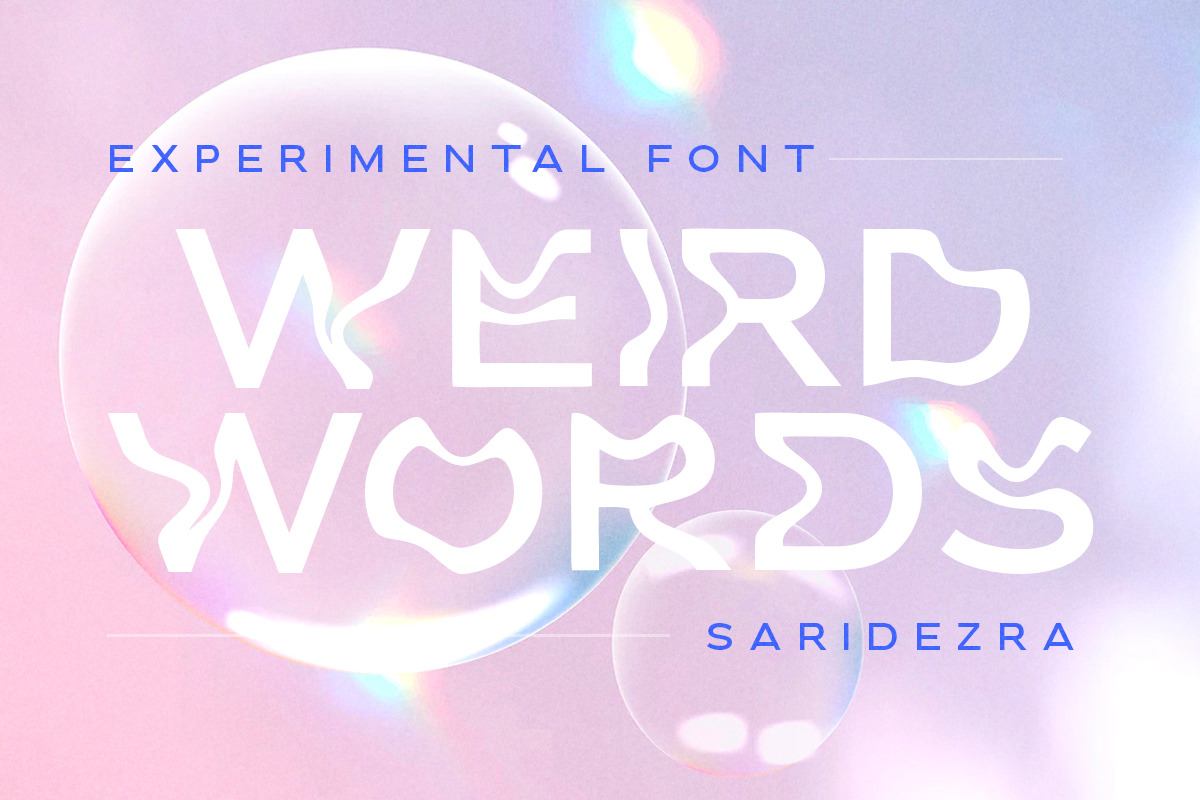
Weird Words - Experimental Font Free Download is a bold and unconventional typeface designed for creatives who aren’t afraid to stand out. With its quirky shapes, unexpected letterforms, and experimental design approach, this font is ideal for album covers, avant-garde posters, zines, and edgy branding projects that demand attention.
Weird Words - Experimental Font Free Download brings a fresh, artistic energy to your work, making it a go-to choice for designers who love pushing visual boundaries. Whether you're working on abstract artwork, indie fashion branding, or underground event promotions, this font delivers the unique aesthetic you're looking for. Download it now and start experimenting with a typeface that breaks all the rules—in the best way possible.